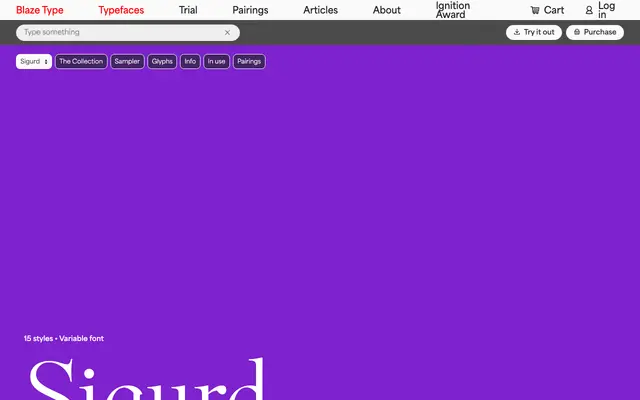
Sigurd
Blaze Type · Matthieu Salvaggio, Léon Hugues · 2021
Sigurd specimen from Blaze Type
A display serif by Matthieu Salvaggio and Léon Hugues inspired by Norse mythology and medieval lettering, offered in 15 styles including semi-italic cuts and a variable file.
Drawing on the visual language of swords, feudal armour and medieval letterforms from the Nibelungen Saga, Sigurd is built around a strong structural skeleton with a generous set of alternate characters and swashes. Five weights from Light to Heavy each come with upright, semi-italic and full italic variants, giving designers considerable range within a single family. It suits editorial headlines, branding and display work where a literary or archaic flavour is wanted without committing to full blackletter.
Sigurd draws from medieval lettering and Norse mythology, producing an elegant serif with strong structural construction, swash characters and alternate forms suited to display sizes rather than continuous text.